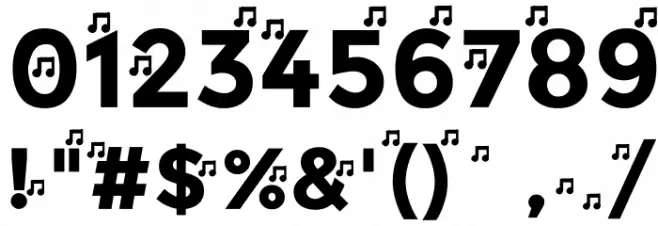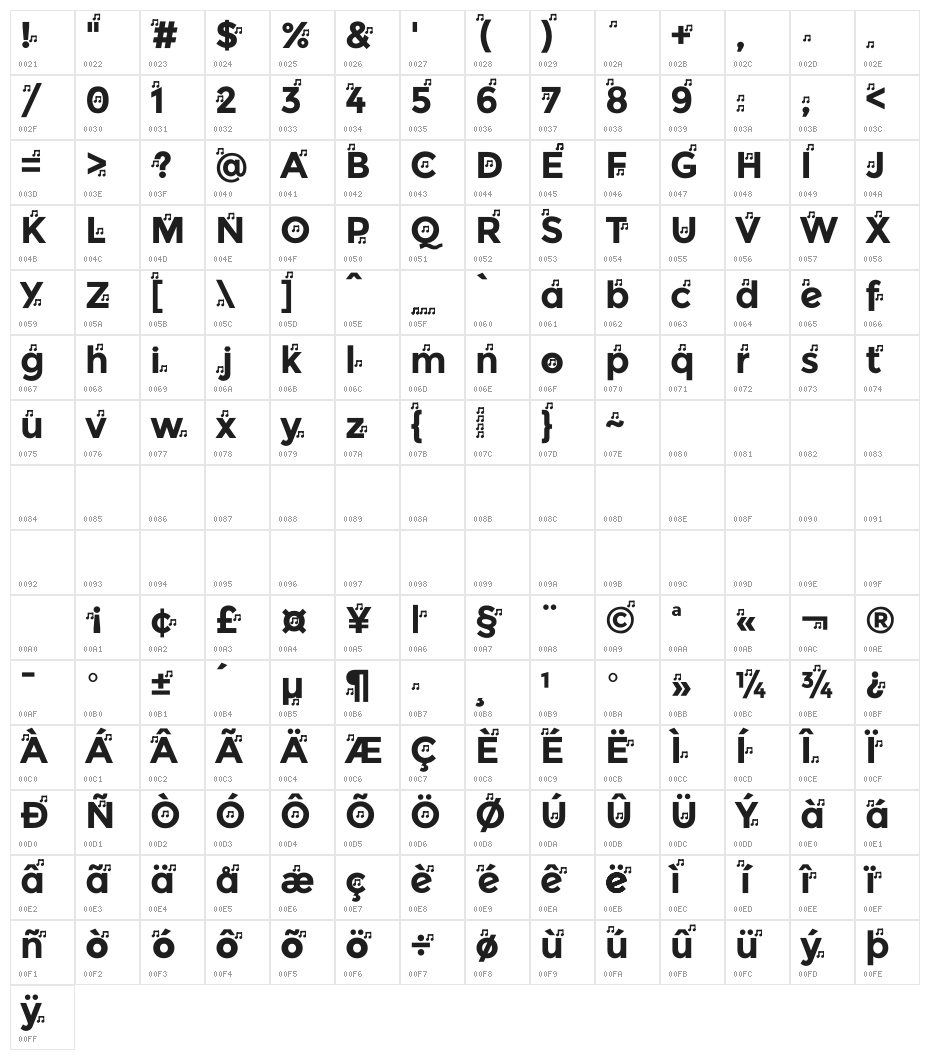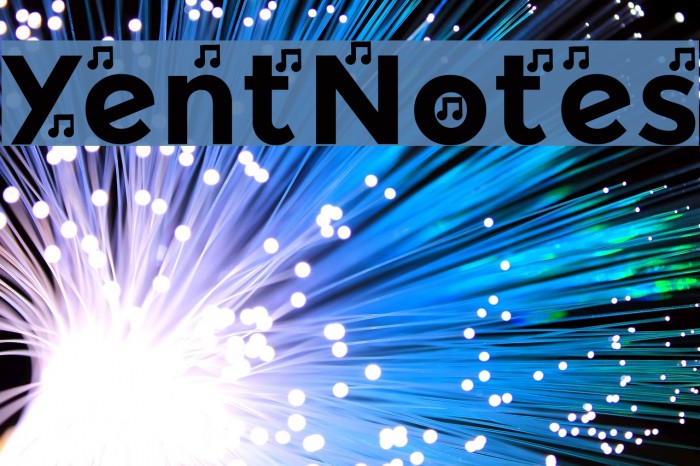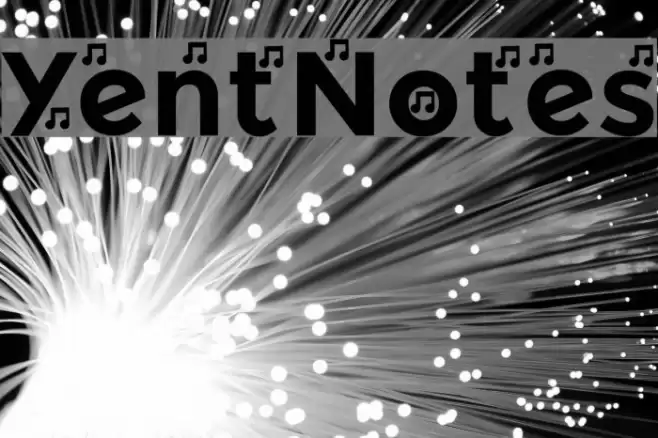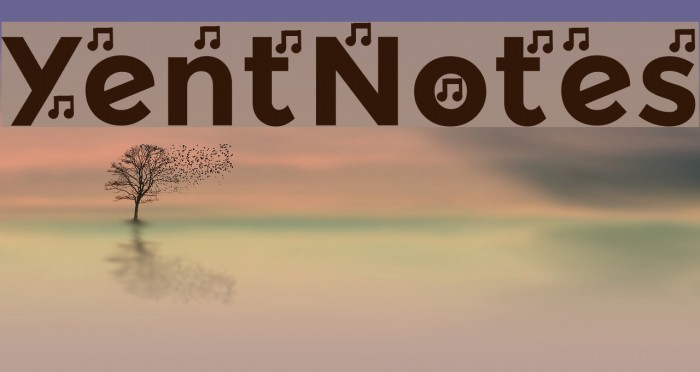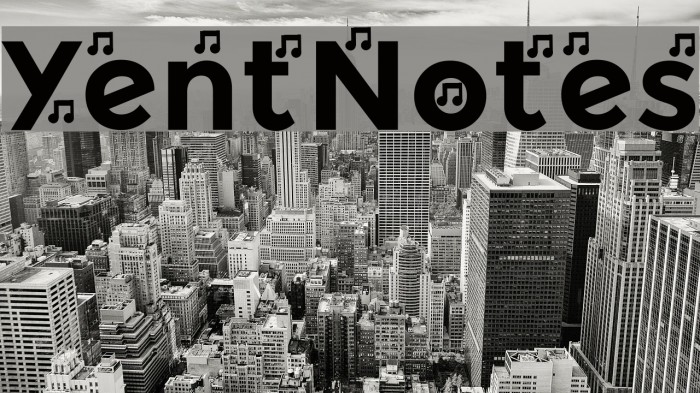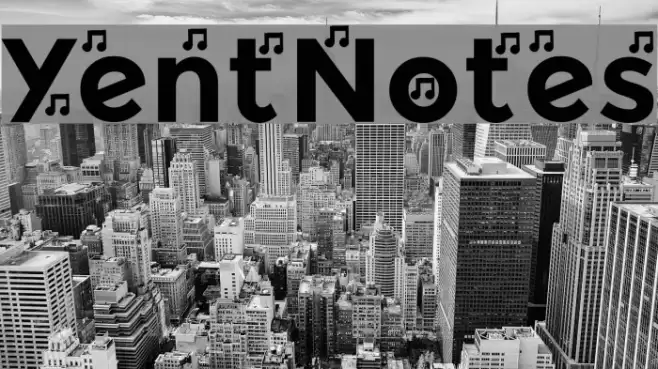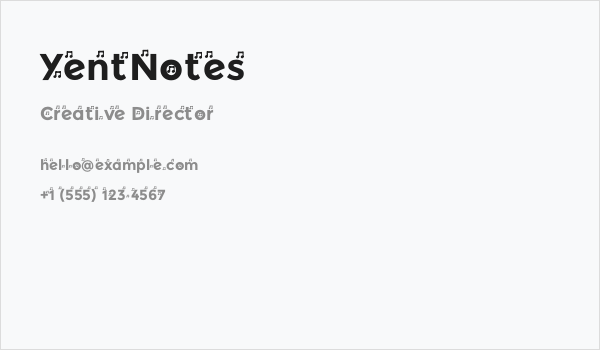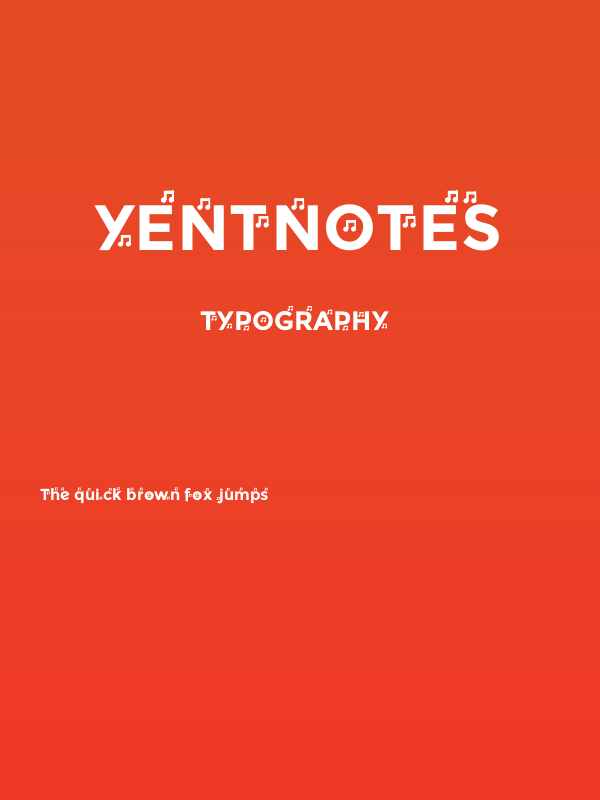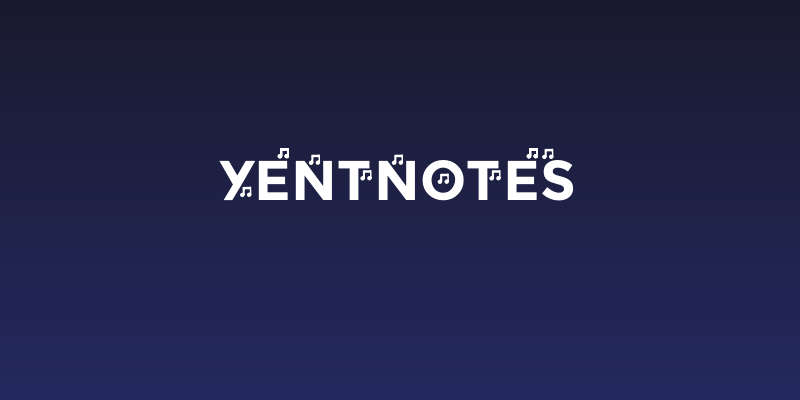
YentNotes Font
YentNotes Description
This playful and dynamic font features bold, rounded characters with a unique twist: each letter and number is adorned with small musical note accents. The notes add a whimsical and lively touch, making the font ideal for creative and fun projects. The characters are evenly spaced, ensuring readability while maintaining a sense of rhythm and movement. The font's bold weight and modern style make it stand out, while the musical elements provide a decorative flair that is both engaging and distinctive.
| Proposed Projects | Ideal for music-related branding, children's books, event posters, and playful graphic designs. |